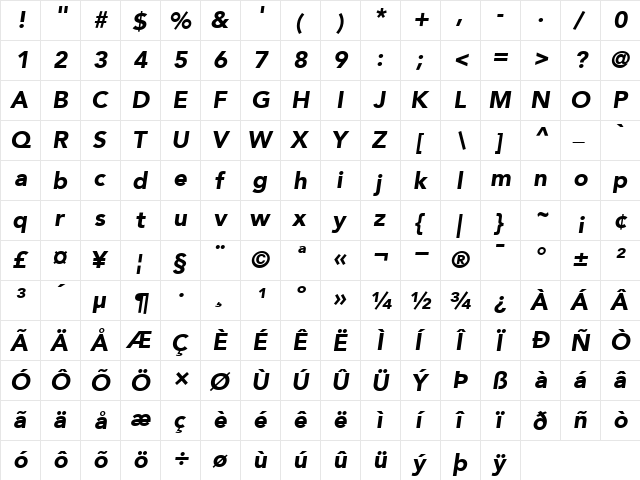
Avenir95-Black BlackItalic
Design Context for Avenir95-Black Typeface
Avenir95-Black is a composed and adaptable typeface that performs quietly and consistently across a wide range of design contexts. The dynamic lean of this cut emphasises speed and emphasis in any layout.
Pro Tip: Use Avenir95-Black for emphasis, pull quotes, and subheadings where its slanted energy can add rhythm to the layout.